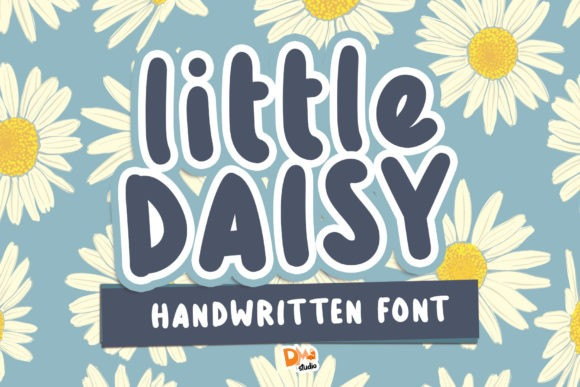
Little Daisy Font
Little Daisy Font is a cool, paint brushed display font. Whether you are using it for cartoon-related designs, children games, quotes, titles, brand names, book covers, posters, or just any creation that requires a touch of joy, this font is a great choice.